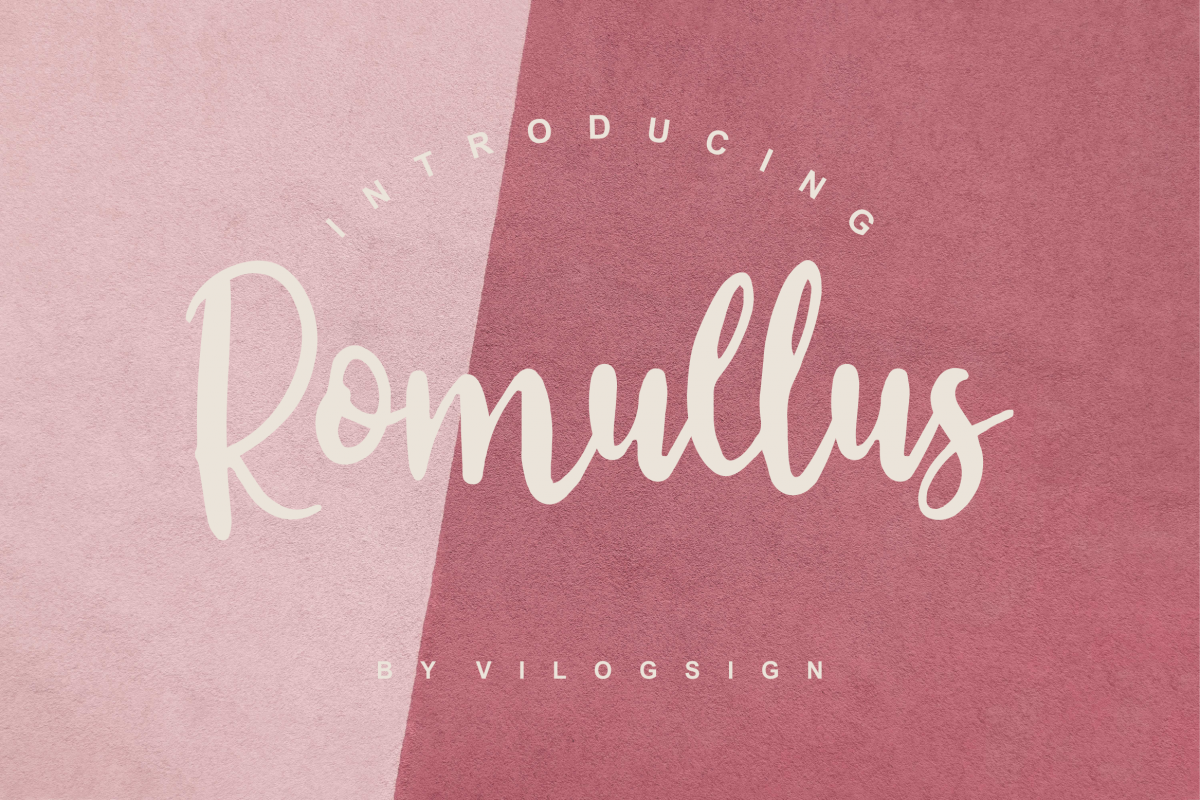
Romullus // Playful Script Font
Hi everyone,,, Introducing new my font "Romullus" is playful script font. With extra vector and ligature, you can make this font more beautiful, playful, elegant and natural. This collection of scripts is perfect for make a logo, brand, magazine, poster, stationery design, business card, and others.